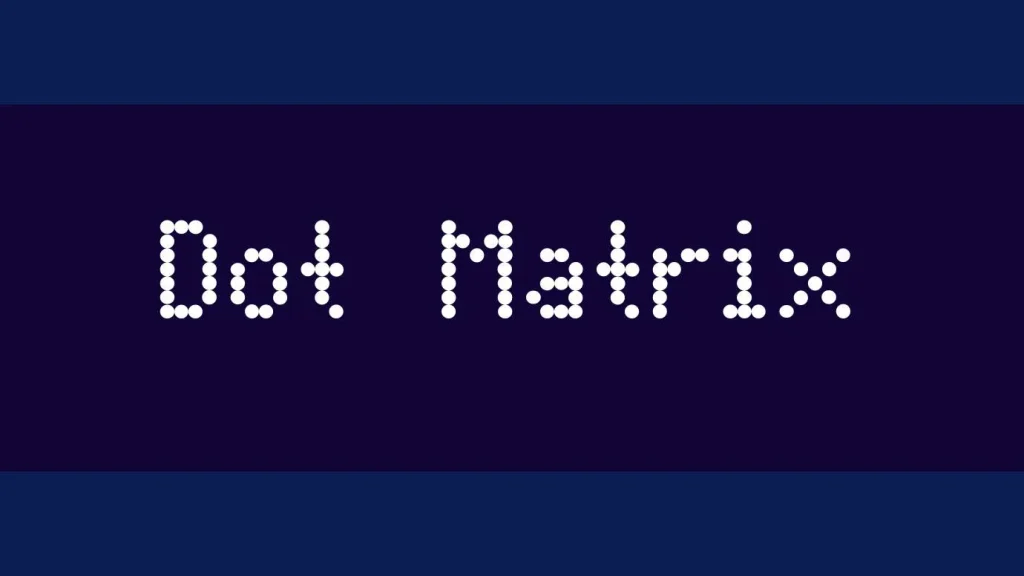
This Retro design and the unusual appearance of dot matrix font design appeal to viewers in general as well as to gaming professionals. With the assistance of the online font tool generator, anyone can create such font designs artistically.
The font is frequently used mostly for branding and advertisement initiatives. Video game players as well as other people who value its distinctive appearance are also fans.
Dot Matrix Font Variations
- Dot matrix Regular
- Dot Matrix Bold
| Name | Dot Matrix Font |
| Designer | Moonbase Press |
| Style | Retro |
Reasons to Use Dot Matrix Font
This design allows you to create graphic text, logos for websites, template designs, and much more. Using this typeface makes it easy to create readable text, notes, articles, and assignments.
Amazing designs and unique corners can be created with this stunning piece. Text designs can look more stylish with this typeface. It comes in a range of styles, making it suitable for a variety of designs. Designers can create text graphics and name designs by using this design.
For usage in programming, transcriptions, word processing, worksheets, conferences, etc. The font type is ideal. Any application that demands for a taken-to-the-extreme typeface would benefit greatly from using the typeface.